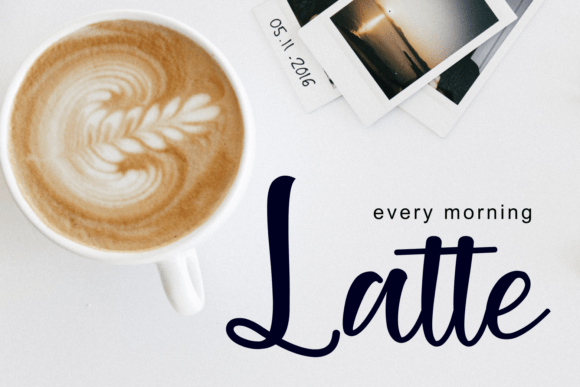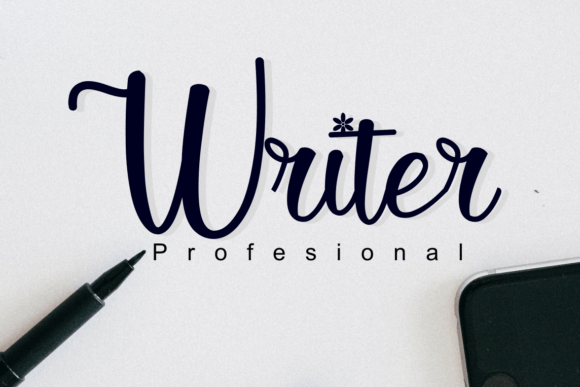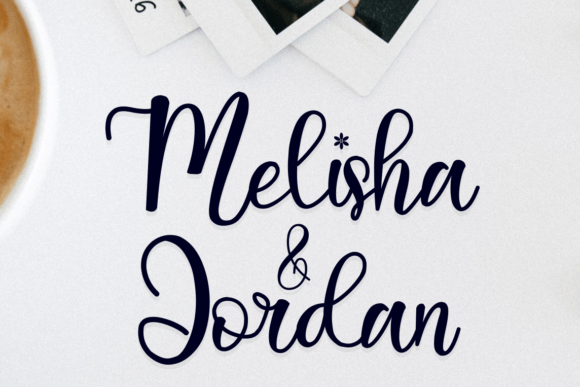
Introducing Bailey Font: Elevate Your Designs with Elegance and Style
Are you a designer or crafter looking for a font that can add a touch of sophistication and elegance to your creations? Look no further than Bailey Font, a stunning handwritten script font that is sure to become a valuable asset in your font library.
What is Bailey Font?
Bailey Font is a beautiful, handwritten script font that exudes style and sophistication. With its flowing lines and elegant letterforms, this font is perfect for a wide range of design projects, from wedding invitations and branding materials to packaging and digital media.
Key Features of Bailey Font
• Handwritten Script Style: Bailey Font features a beautiful, handwritten script style that adds a personal touch to any design project.
• Elegant and Sophisticated: With its flowing lines and elegant letterforms, Bailey Font is perfect for designs that require a touch of sophistication and elegance.
• Highly Versatile: Whether you’re designing a wedding invitation, a brand logo, or a digital media project, Bailey Font is highly versatile and can be used for a wide range of applications.
• Easy to Read: Despite its elegant and cursive nature, Bailey Font is easy to read, making it perfect for body text and headlines.
Why Choose Bailey Font?
So, why should you choose Bailey Font for your design projects? Here are just a few reasons:
• Adds a Personal Touch: Bailey Font’s handwritten script style adds a personal touch to any design project, making it perfect for designs that require a human touch.
• Elevates Your Designs: With its elegant and sophisticated style, Bailey Font can elevate any design project, making it perfect for designers who want to create high-end designs.
• Time-Saving: Bailey Font is a high-quality font that is ready to use, saving you time and effort in your design projects.
How to Use Bailey Font
Bailey Font is easy to use and can be incorporated into a wide range of design projects. Here are a few ideas to get you started:
• Wedding Invitations: Use Bailey Font to create beautiful and elegant wedding invitations that set the tone for the big day.
• Branding Materials: Bailey Font is perfect for branding materials, such as logos, business cards, and letterheads.
• Packaging Design: Add a touch of elegance to your packaging design with Bailey Font, perfect for luxury brands and high-end products.
• Digital Media: Bailey Font can be used in digital media, such as social media graphics, blog posts, and email marketing campaigns.
Tips and Tricks for Using Bailey Font
Here are a few tips and tricks for using Bailey Font in your design projects:
• Pair with Other Fonts: Bailey Font pairs well with other fonts, such as sans-serif fonts, to create a beautiful and harmonious design.
• Use for Headlines and Body Text: Bailey Font is easy to read, making it perfect for both headlines and body text.
• Experiment with Colors: Bailey Font looks great in a variety of colors, so don’t be afraid to experiment and find the perfect color scheme for your design.
Font Name Bailey Font
Author Infontree
In conclusion, Bailey Font is a stylish and elegant handwritten script font that is perfect for designers and crafters who want to add a touch of sophistication and elegance to their creations. With its highly versatile style, ease of use, and cost-effective pricing, Bailey Font is an excellent addition to any font library.